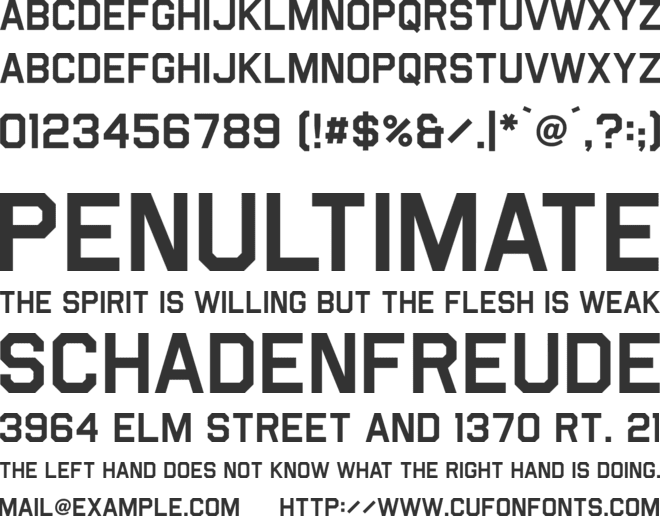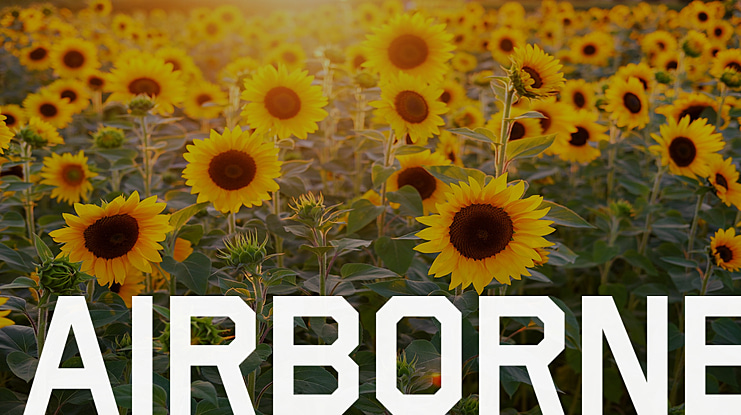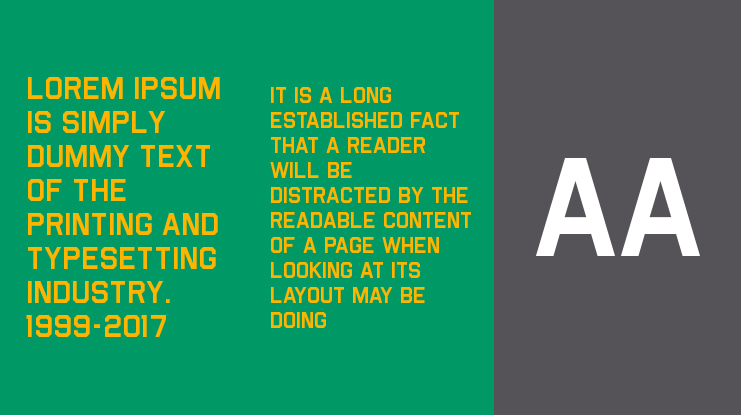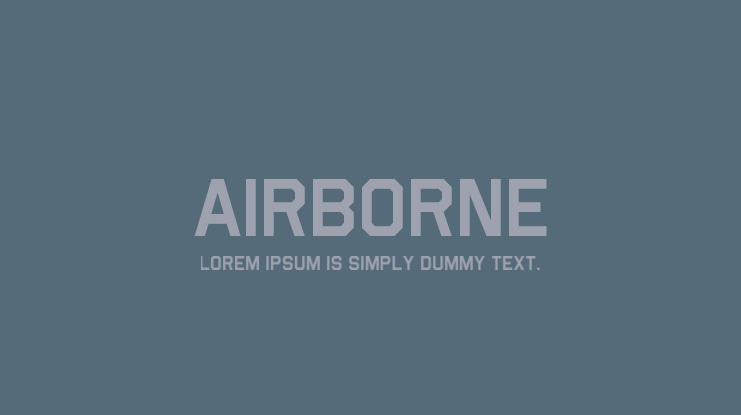
Airborne Font Family
This font was designed to simulate the lettering on the hull of the U.S.S. Enterprise from the 1960's TV show Star Trek. It is more closely related to lettering seen on the hulls of ocean-going ships than to that found on aircraft.
This is the latest version of Airborne, a font I created for hull lettering on TOS-era ships. This version includes several minor corrections, such as shortening the "hooks" on the C and easing back the diagonal stroke on the 7. The four variations currently available are:
- Airborne, the original font based on the decals on the Enterprise
- Airborne Pilot, which has alternate versions of some characters, for use on Pike-era ships
- Airborne II, slightly narrower and lighter in weight than Airborne
- Airborne II Pilot, the Pike-era version of Airborne II
All of the fonts contain full Cyrillic, Greek and Hebrew alphabets, as well as dozens of diacritcs and other special symbols.